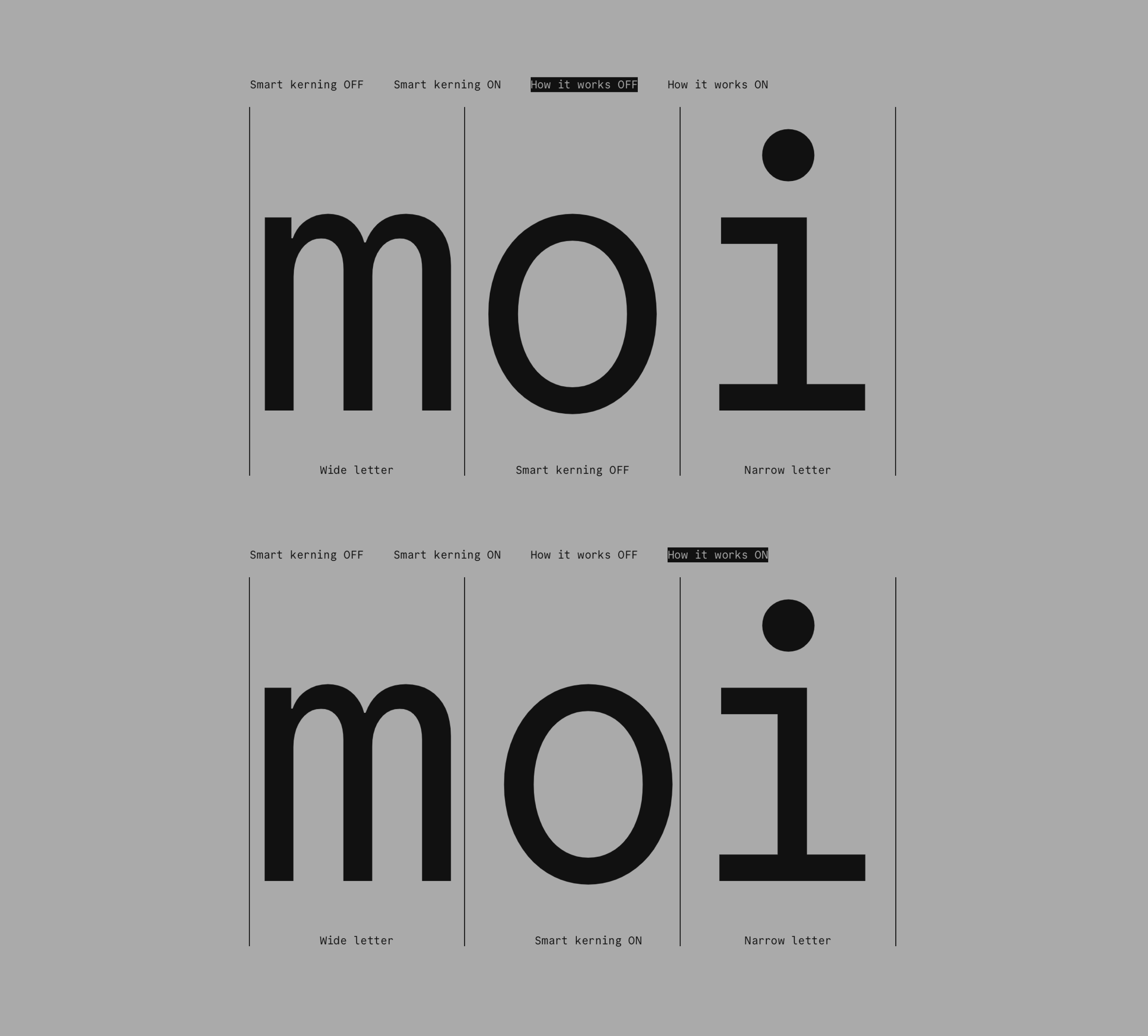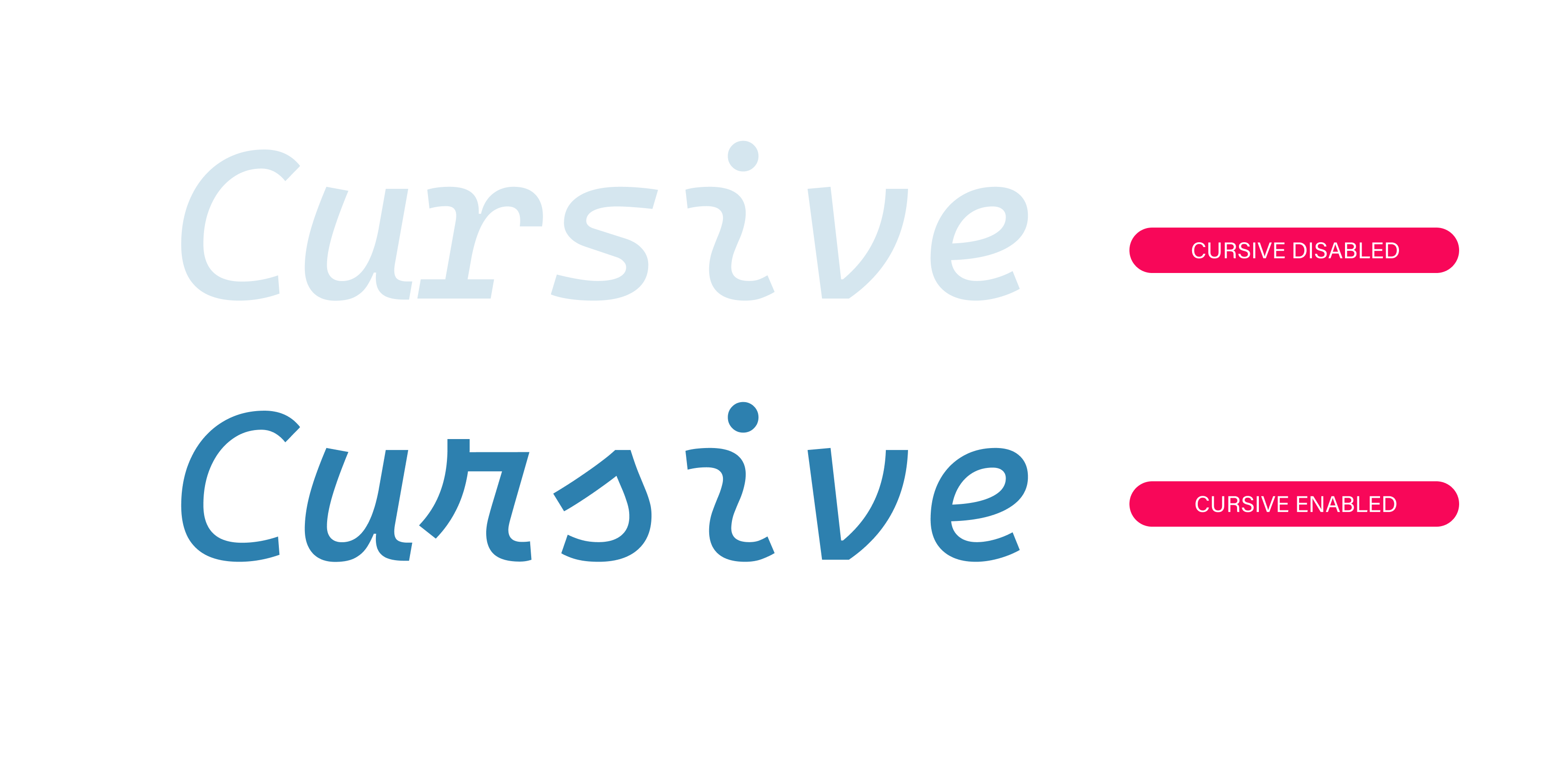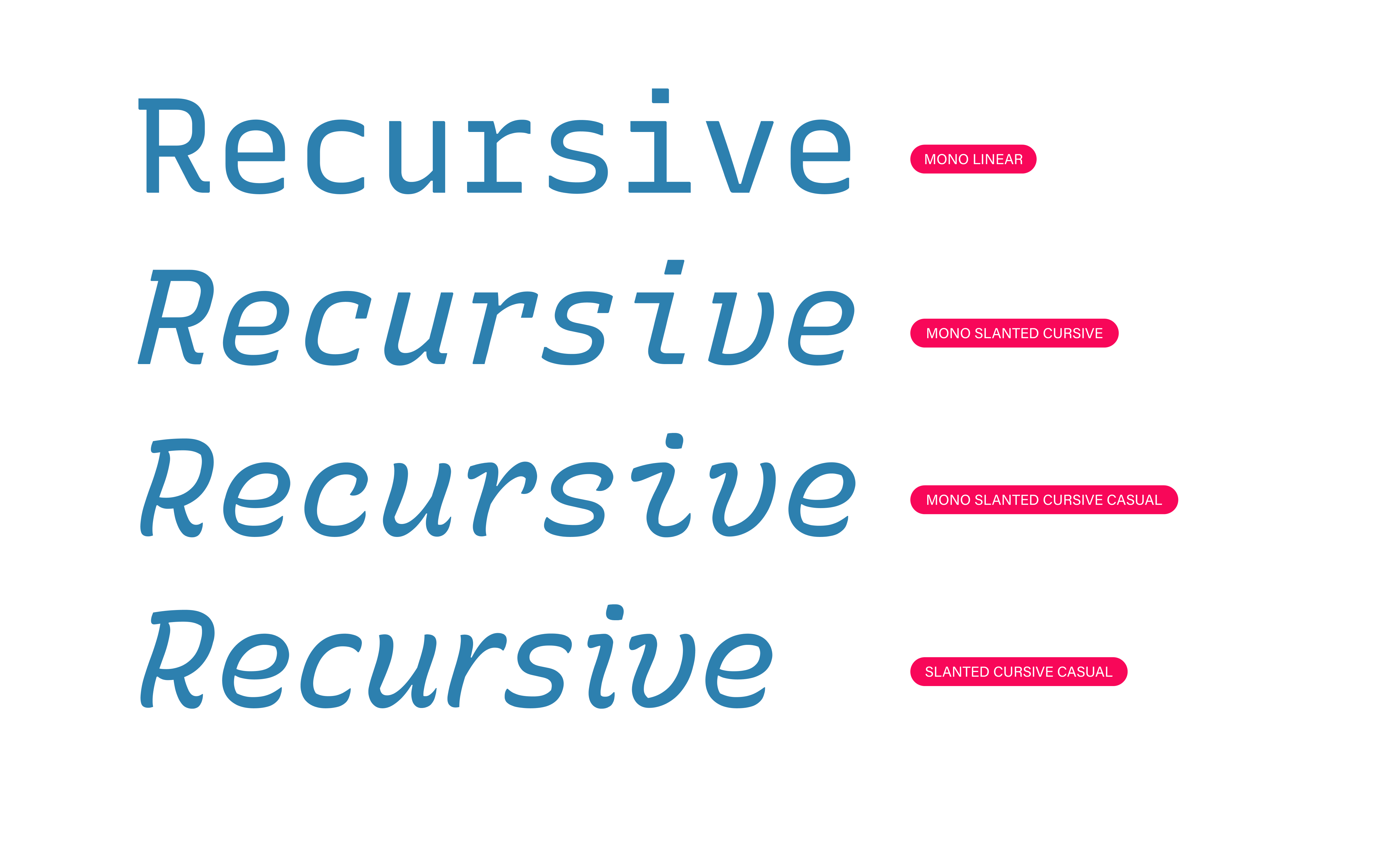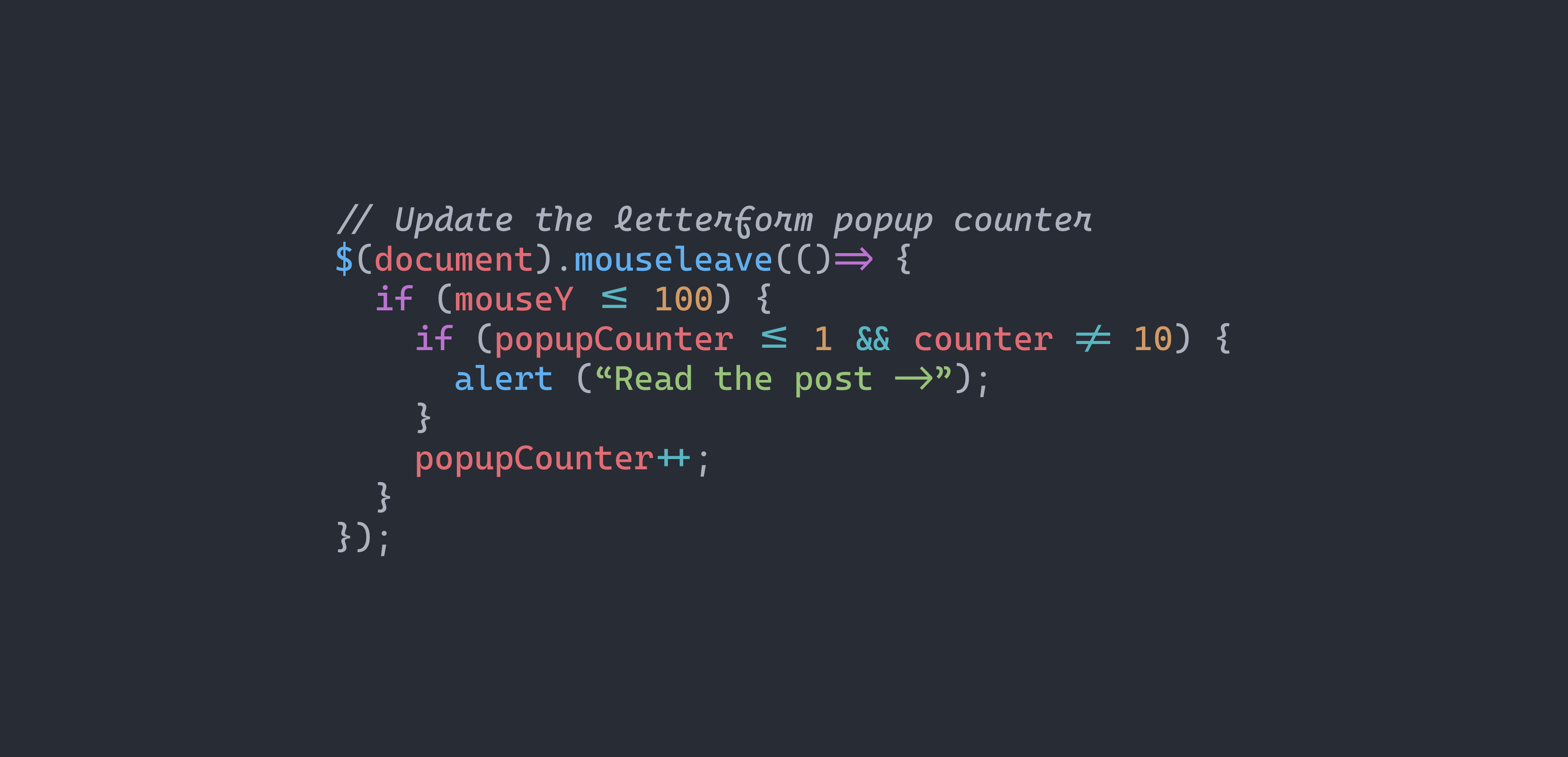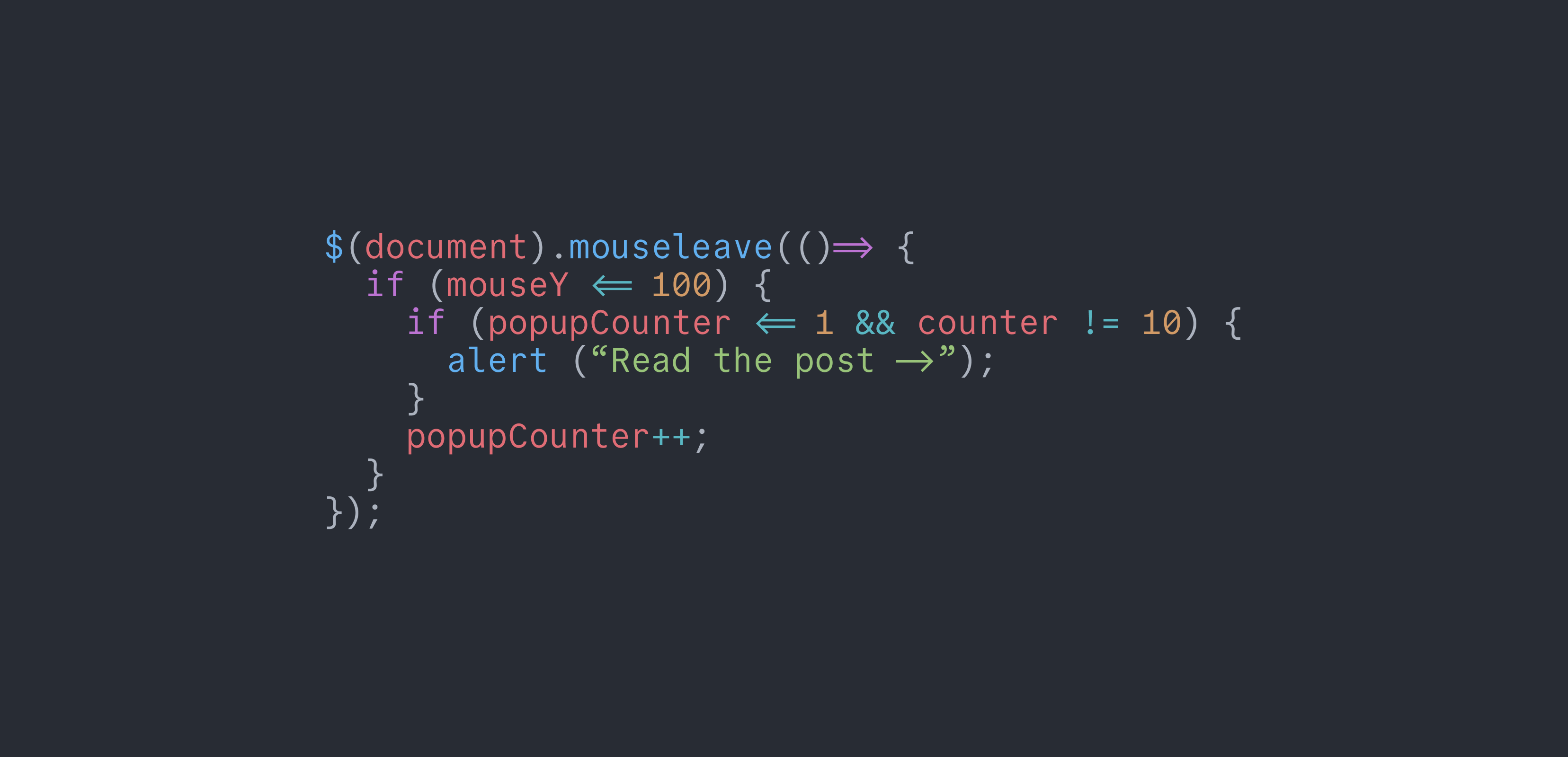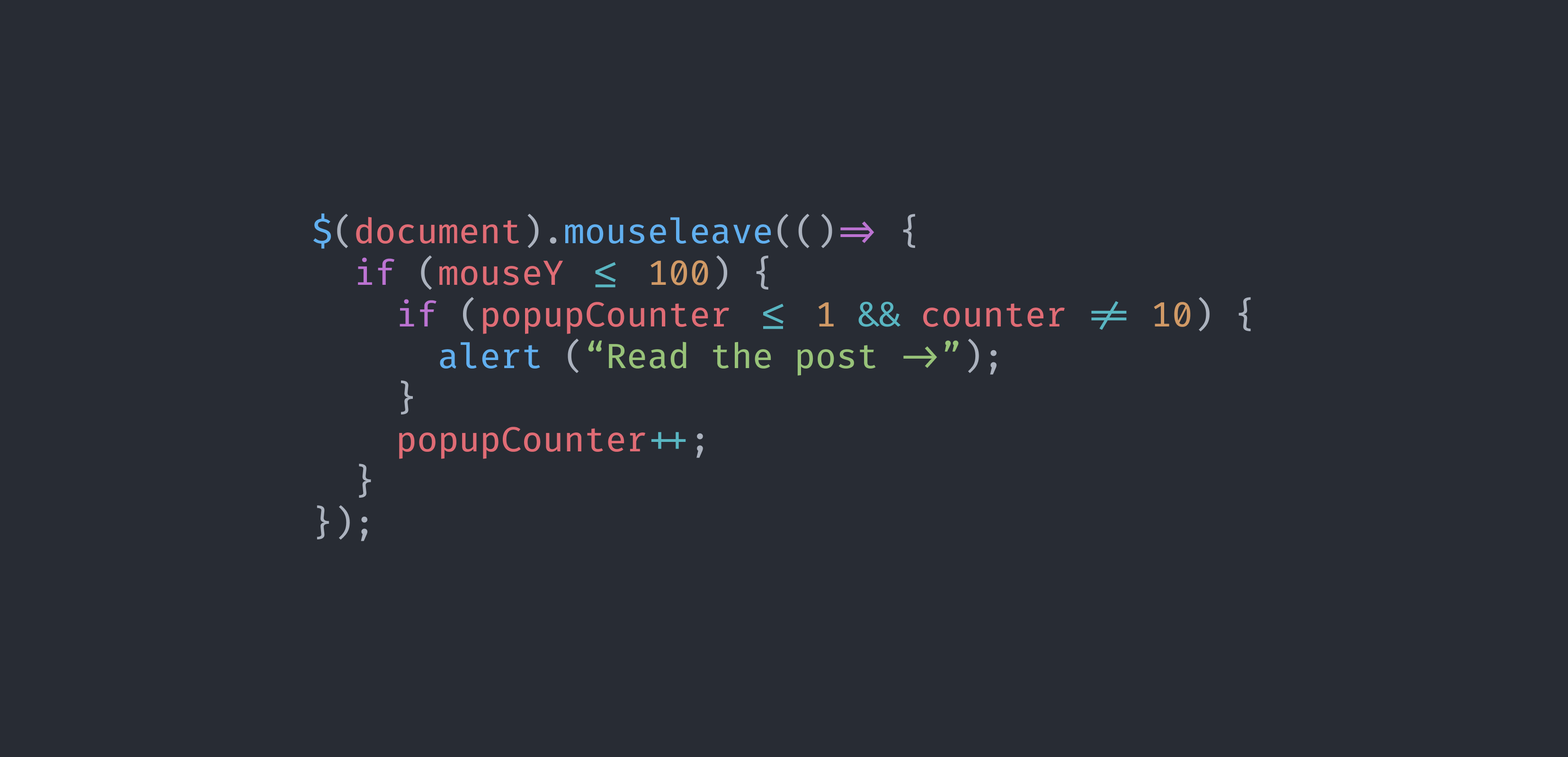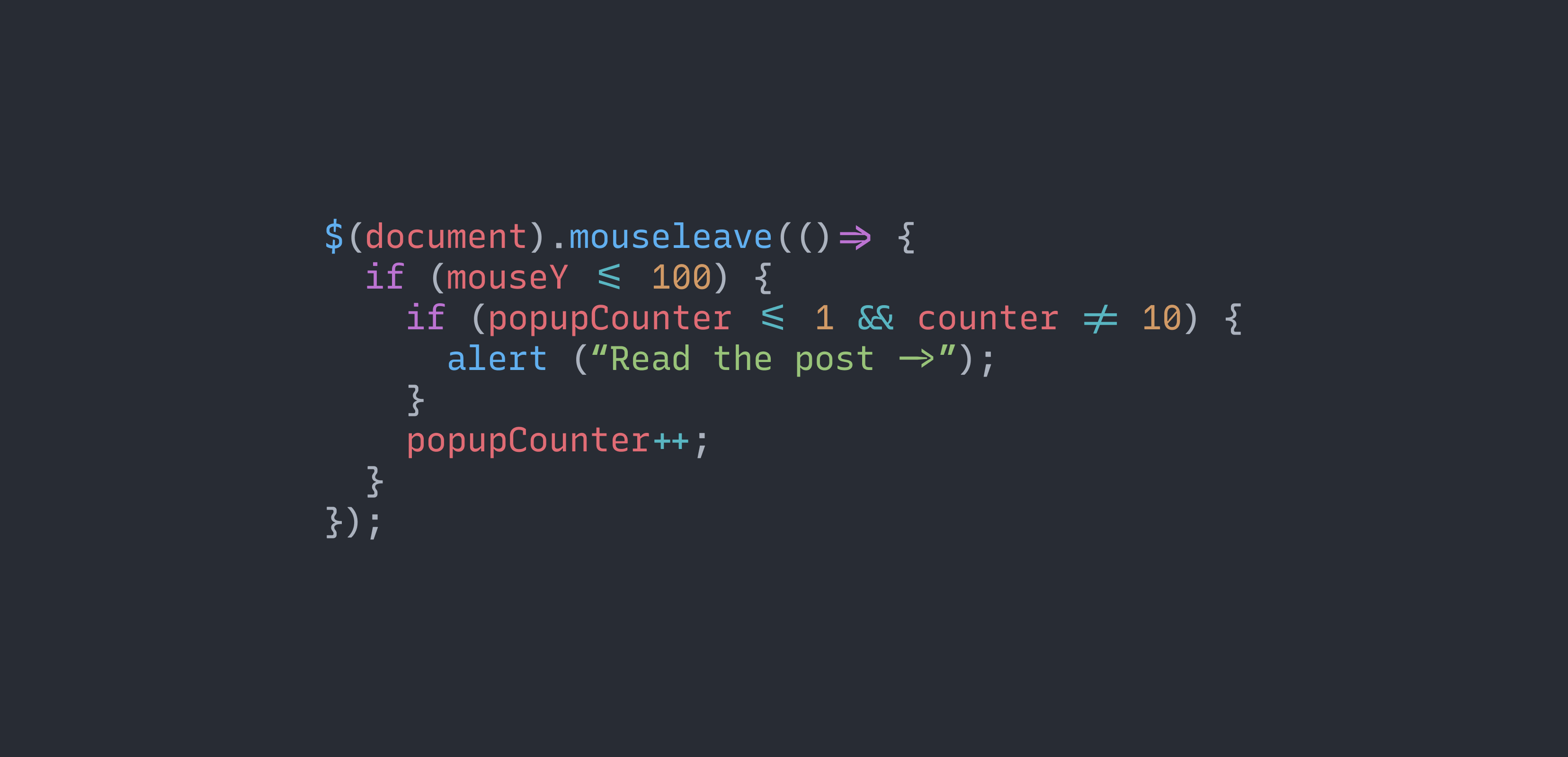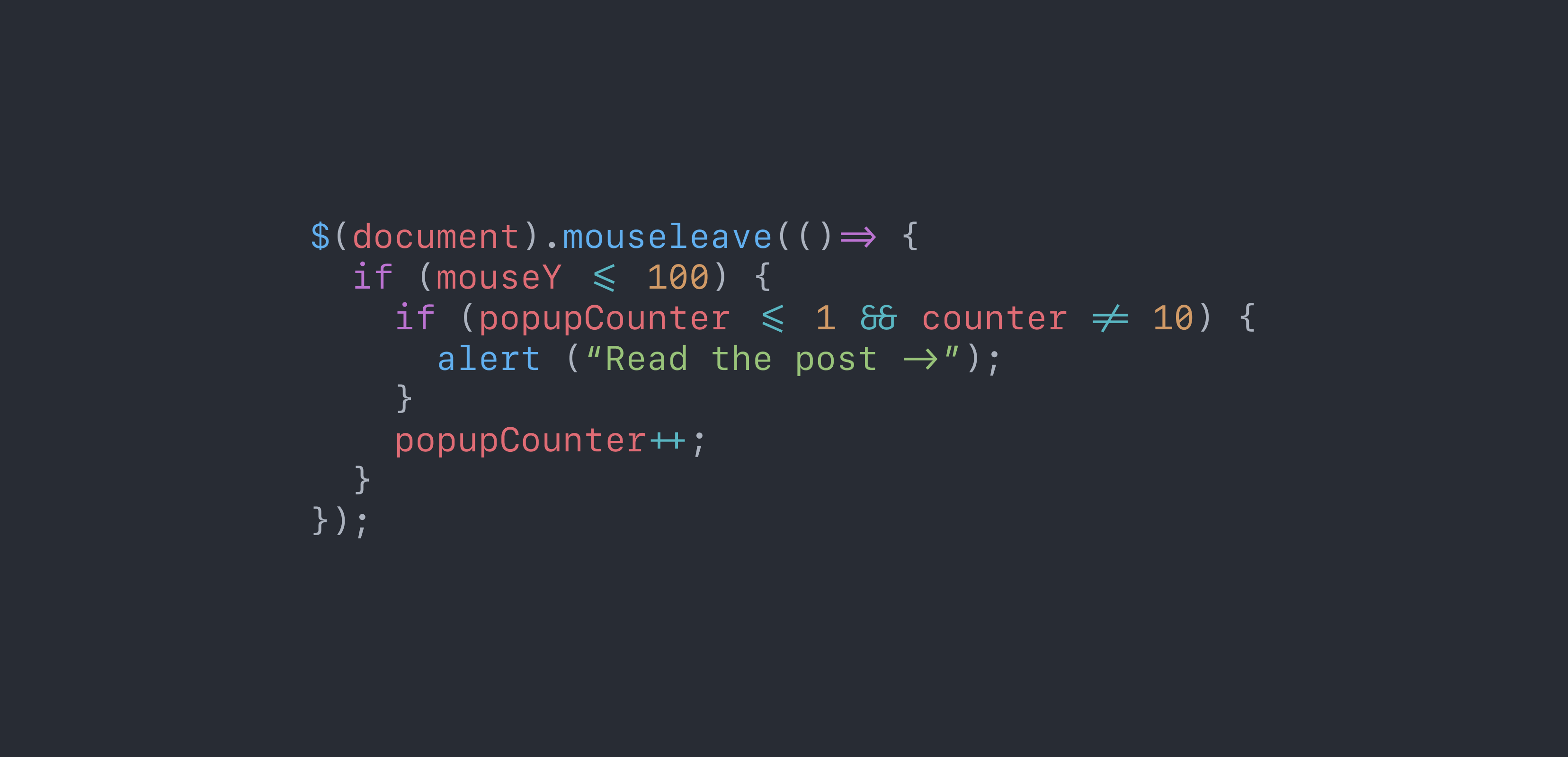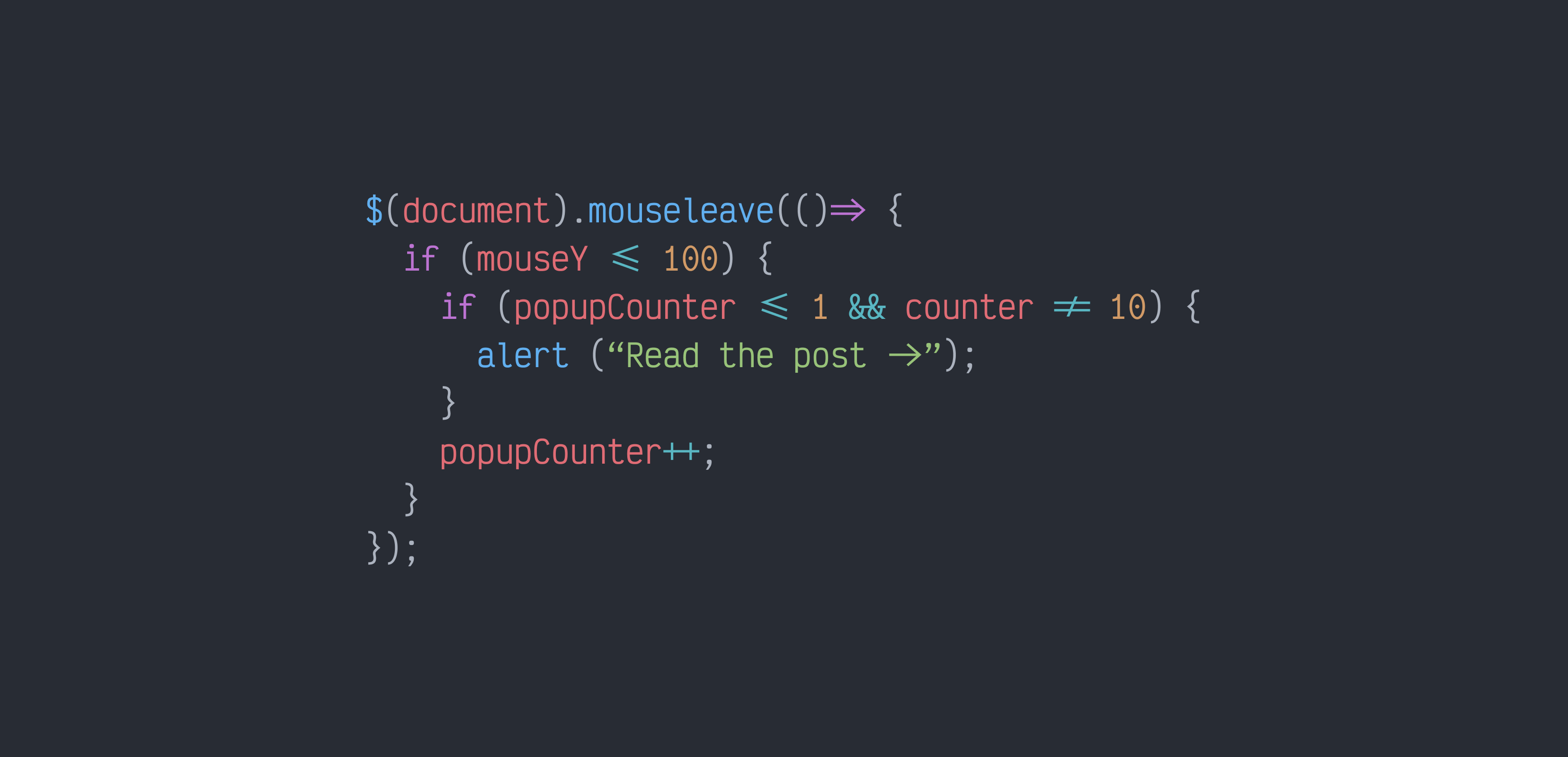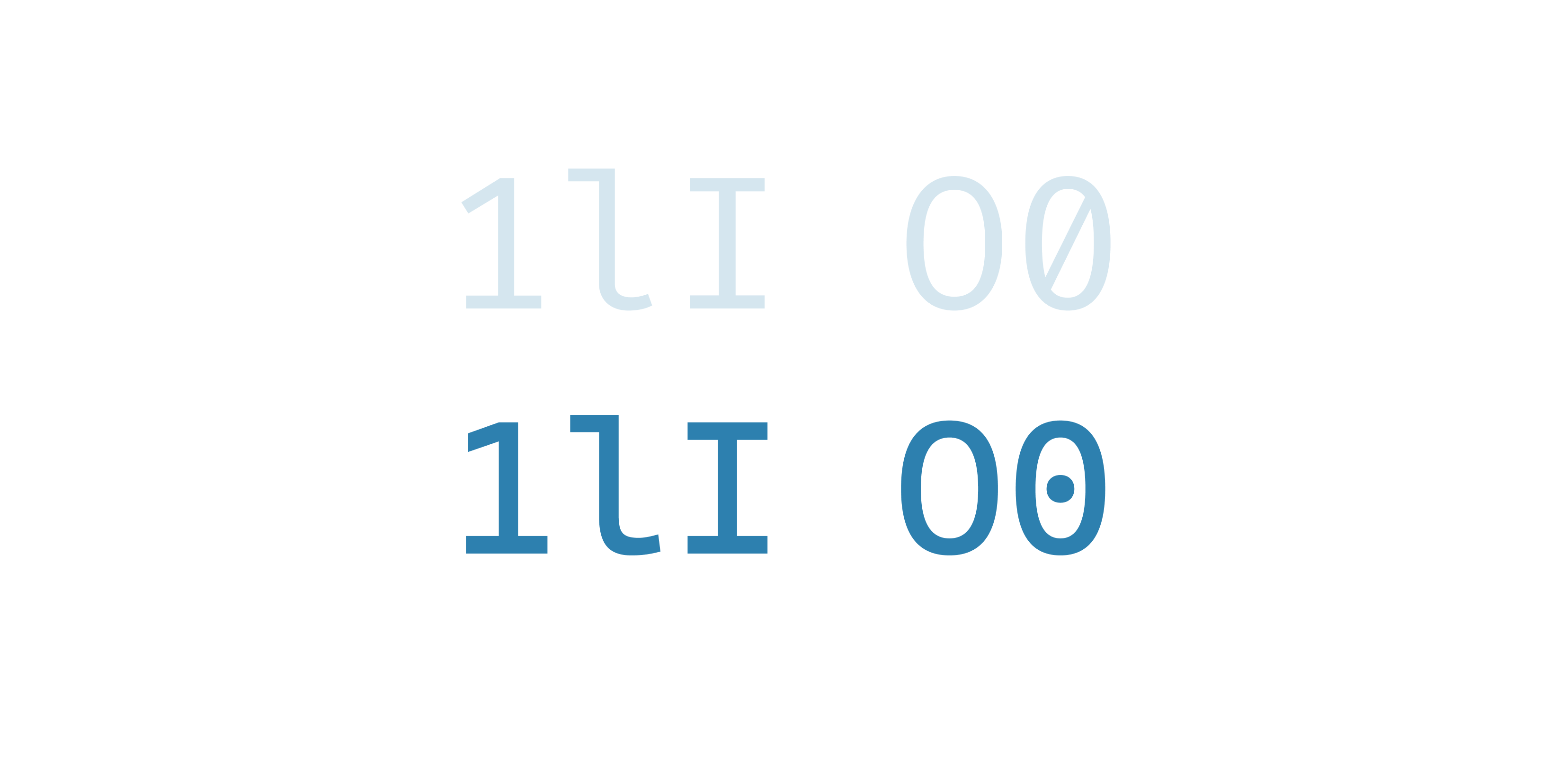
Which font do you use for coding? If you’re a part of the majority who use Visual Studio as their IDE, you probably use Consolas, granted that you haven’t changed it. And that’s a good font, why would you want to change it? Well, it comes down to personal preference.
I only switched from the default font when I switched from Sublime Text to Visual Studio a few years ago. That’s when I wrote the original blog post about 5 monospaced fonts with coding ligatures. I was customising Visual Studio’s theme and wanted something different. I wanted to make the setup more “mine.”
We’re in the golden age of fonts, especially open-source ones. Many more monospaced fonts with coding ligatures have sprung up since that blog post so it’s time to revisit and examine five more.
I’ll compare them to Fira Code, a popular choice among programmers which makes it a perfect baseline for such comparison. This way we’ll see how the fonts I picked compare in legibility, x-height, ligatures, and what they look like in action.
What are ligatures? They’re specially designed characters in a font that usually combine two characters into one, to prevent collisions (Fig 1).
Fig 1: An example of “fi” “fj” “fl” “ffi” ligatures. The bottom example with ligatures is the desirable one.
Fira Code
Fira Code is based on Fira Mono from Mozilla. It has a regular x-height, many coding ligatures, and scores well on legibility. That’s what makes it an even better baseline for comparison. This is what it looks like in action (Fig 2).
Fig 2: Fira Code in action.
X-height
Larger x-height is generally considered to have a positive impact on legibility for small font sizes. This certainly applies to fonts for coding so x-height will be one of the major factors in my analysis.
Fira Code’s x-height is what I would call “regular” (Fig 3). Not small, not large, somewhere in between. This is another property that makes it a good baseline to compare other fonts to.
Fig 3: Fira Code’s x-height is regular.
Legibility
The legibility of a font can be quickly evaluated by taking a close look at characters 1lI O0. The designs of these characters need to be distinct, which in the case of Fira Code, they are (Fig 4).
Fig 4: Fira Code scores well on legibility.
Coding ligatures
When it comes to coding ligatures, Fira Code probably has the widest range. Here are some of the most prominent ones (Fig 5).
Fig 5: Fira Code has the widest reange of coding ligatures and they look great.
Ok, we have the baseline established, now let’s take a look at new monospaced fonts with coding ligatures.
Commit Mono
Commit Mono is described by its authors as _an anonymous and neutral coding font focused on creating a better reading experience. _It’s a variable font, highly customisable through its many Open Type features.
It even comes with “Smart kerning.” Kerning is crucial for readability but it has been impossible to combine with monospaced fonts so far. “Smart kerning” slides letters into a better position while preserving the monospacing. This makes the Commit Mono a highly readable monospaced font (Fig 6).
Fig 6: Commit Mono’s smart kerning feature helps improve the readability of the font. Notice the position of “o” in the bottom example.
Here’s what Commit Mono looks like in action (Fig 7).
Fig 7: Commit Mono in action.
Ligatures
Commit Mono doesn’t have a huge range of coding ligatures but it has the basic ones. They look nice, but those in Fira Code look nicer. Have a look for yourself (Fig 8).
Fig 8: Coding ligatures in Commit Mono.
X-height
Commit Mono’s x-height is just slightly larger than that of Fira Code (Fig 9). As I take a closer look, I notice how well-spaced the Commit Mono’s characters are. Is that the “Smart kerning” in action?
Fig 9: Commit Mono’s x-height is comparable to that of Fira Code.
Legibility
Even as I closely inspect the characters 1lI O0 I noticed a lot of similarities between Commit Mono and Fira Code. Take a look at the lowercase “l” and uppercase “I.” They look almost identical (Fig 10).